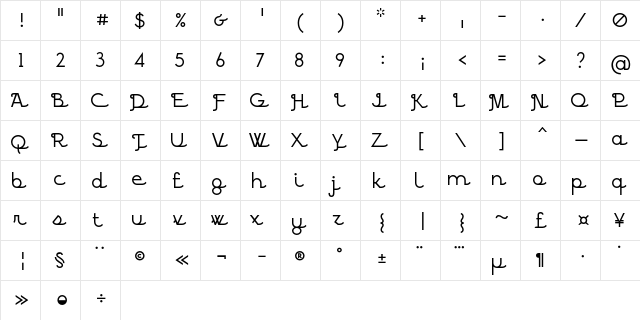
BPscript Regular
| Foundry | George Triantafyllakos |
| Designer | George Triantafyllakos |
Design Context for BPscript Typeface
BPscript flows with the natural rhythm of handwritten lettering, making it ideal for designs that call for warmth and personal expression.
Font Pairing: Combine BPscript with a simple geometric sans for maximum contrast — the tension between flowing curves and clean structure is a classic typographic pairing.
Pro Tip: Use BPscript for short runs of text — names, titles, or taglines. Extended body copy in script faces tires the eye quickly.